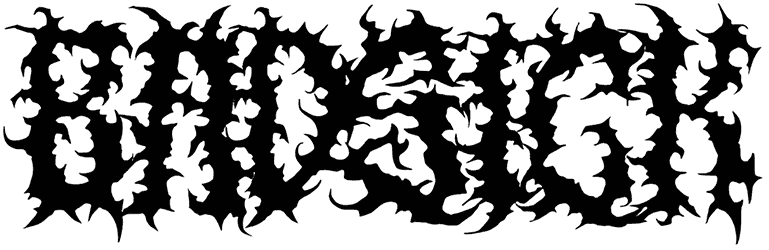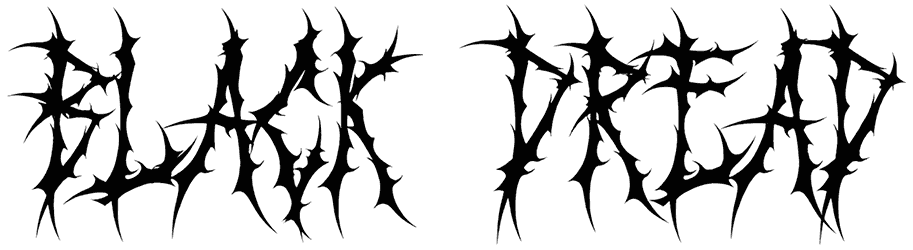
Jeritan Lowokwaru Font
Sometimes, everything you do to your text to make it more challenging to read is all part of the plan. Look at the Jeritan Lowokwaru here, for instance. This cactus font is covered with so many spikes all over, with letters so closely arranged as a barbed wire font that you need to focus before you can see what’s going on.
With no lowercase and very limited punctuation, Jeritan Lowokwaru still gets the job done for witch story titles, T-shirts, and everything.